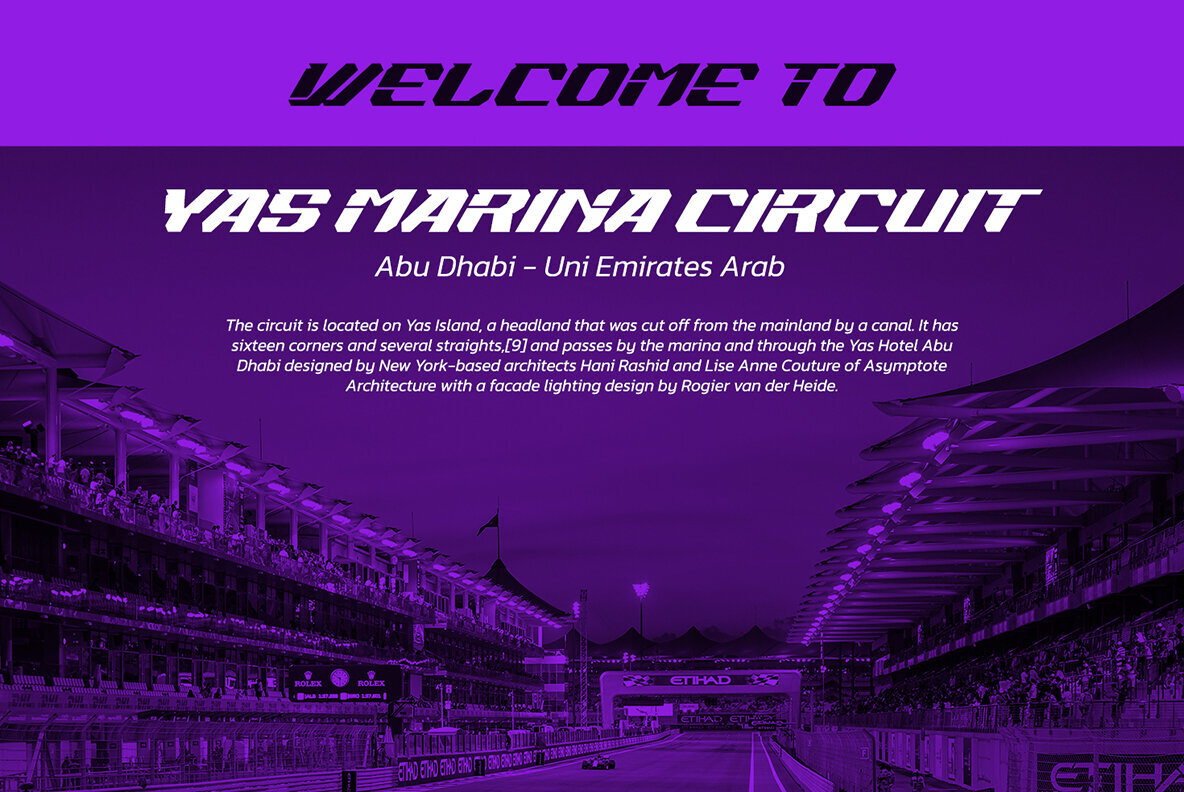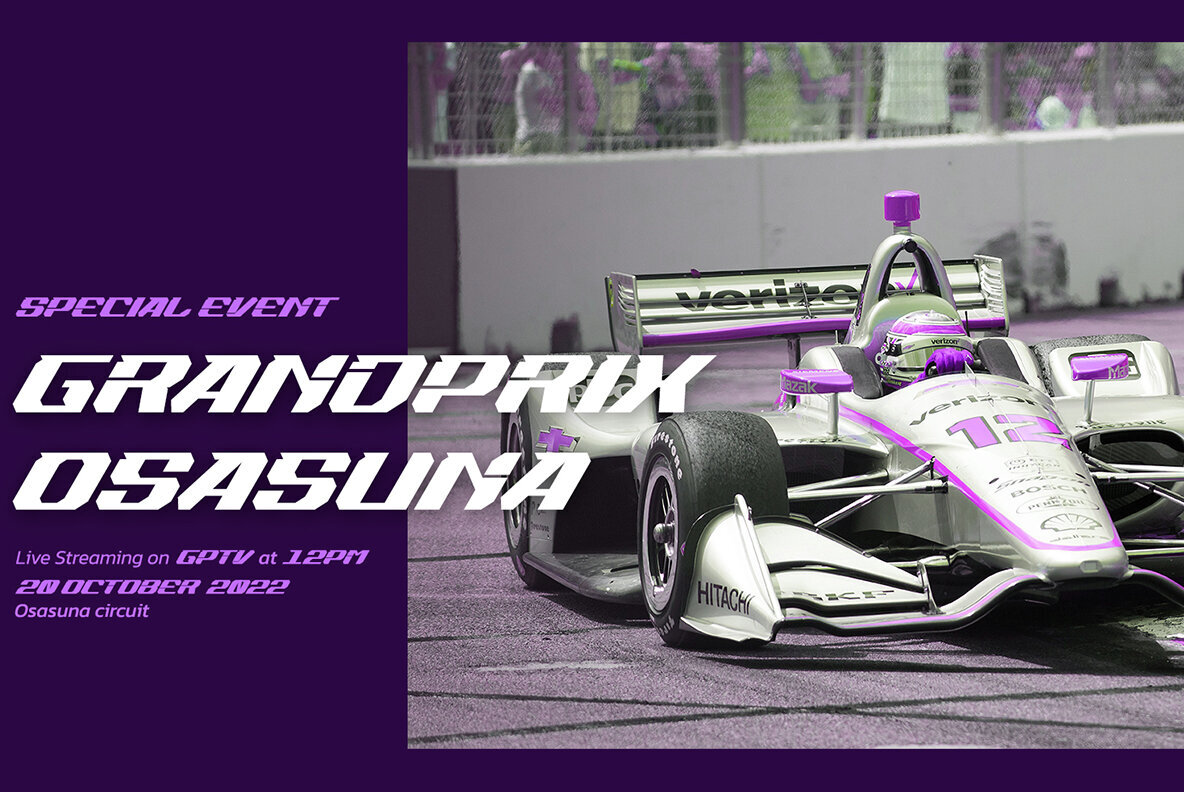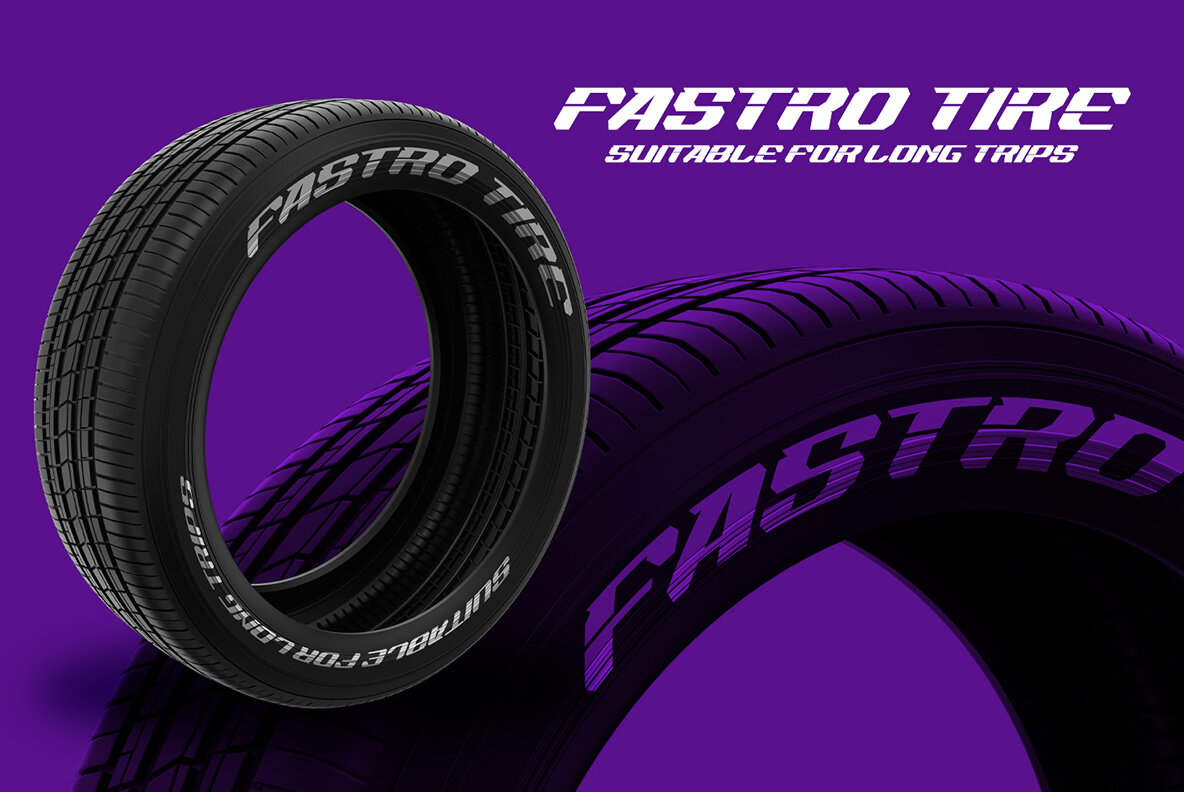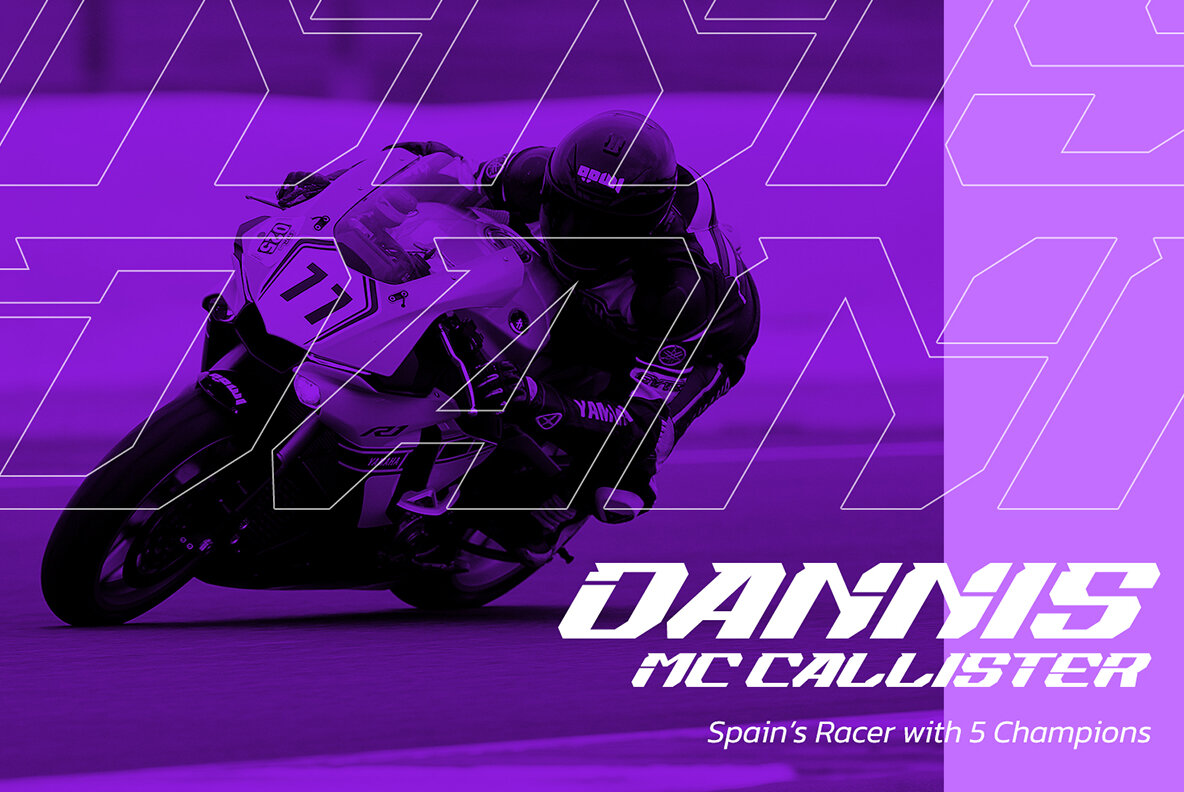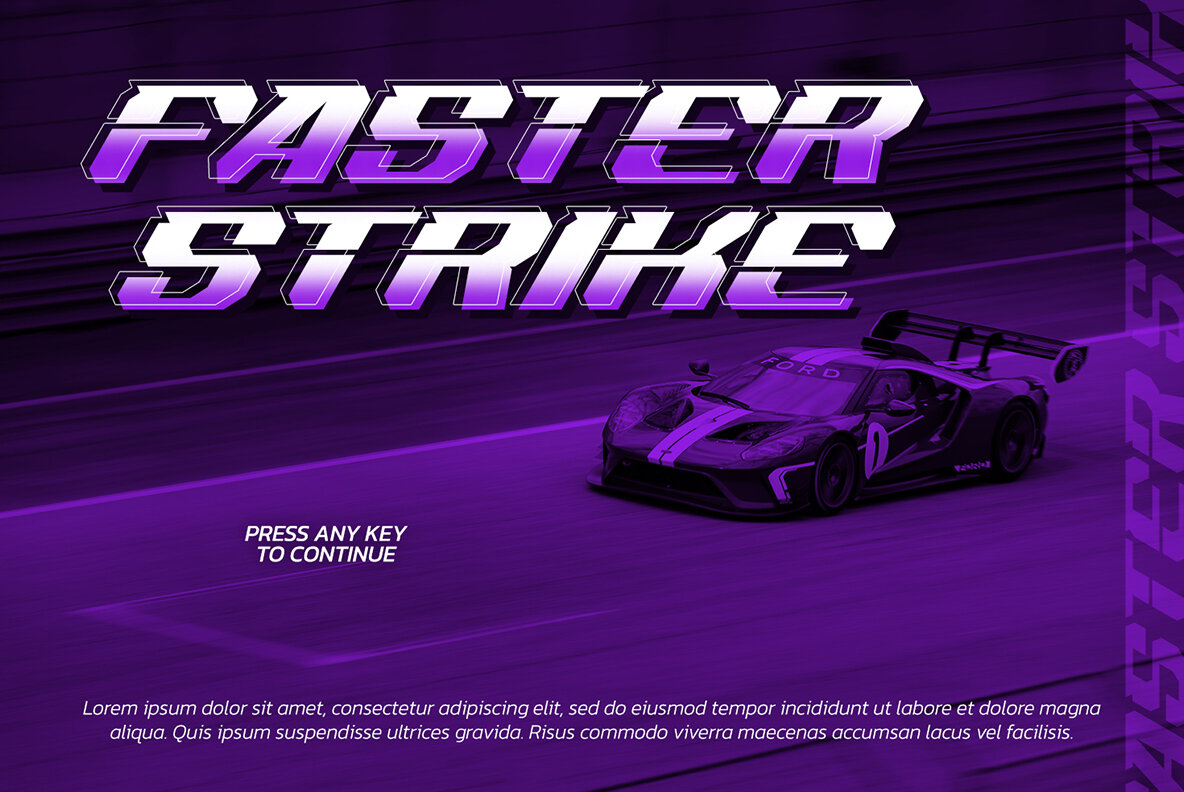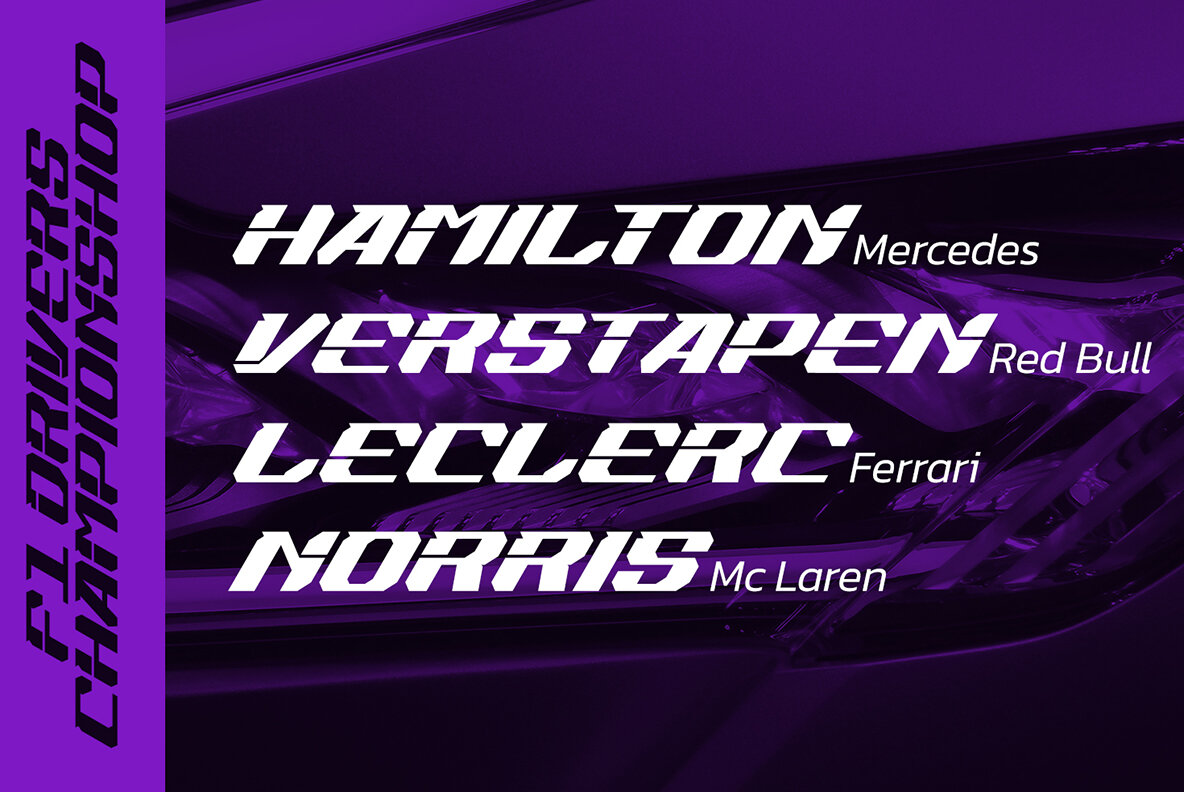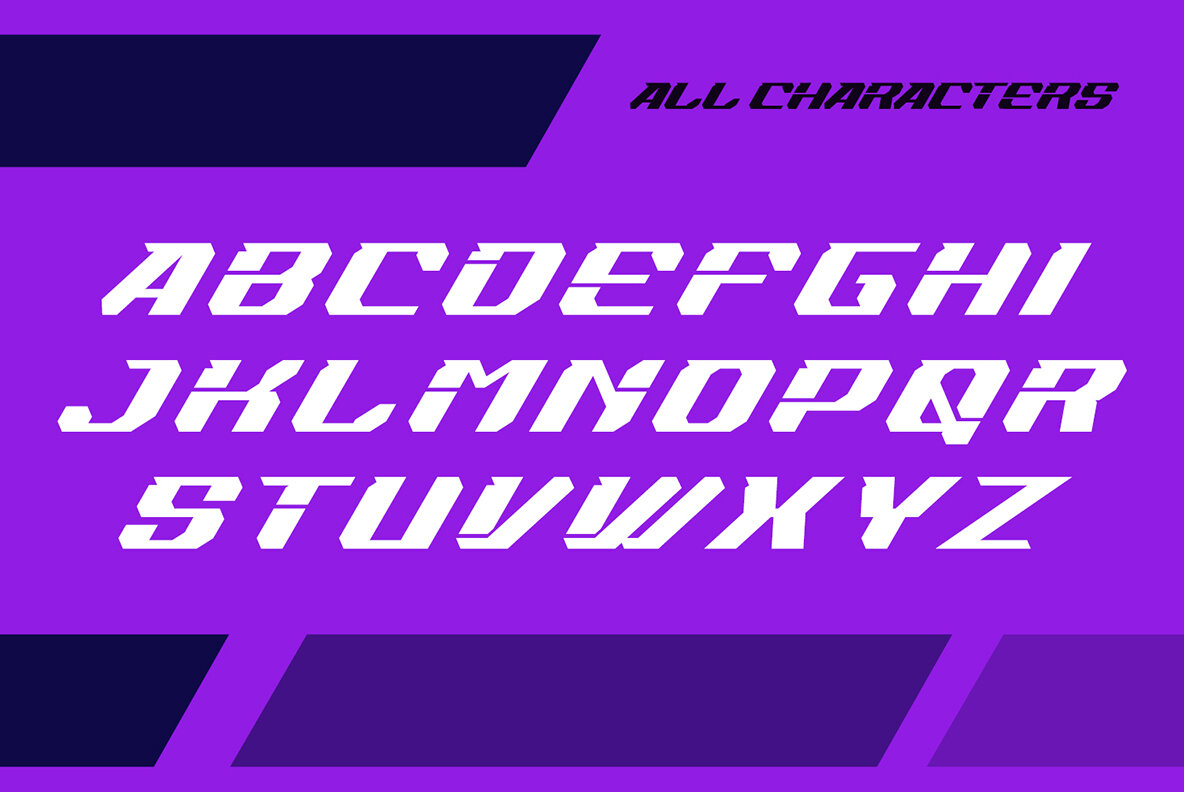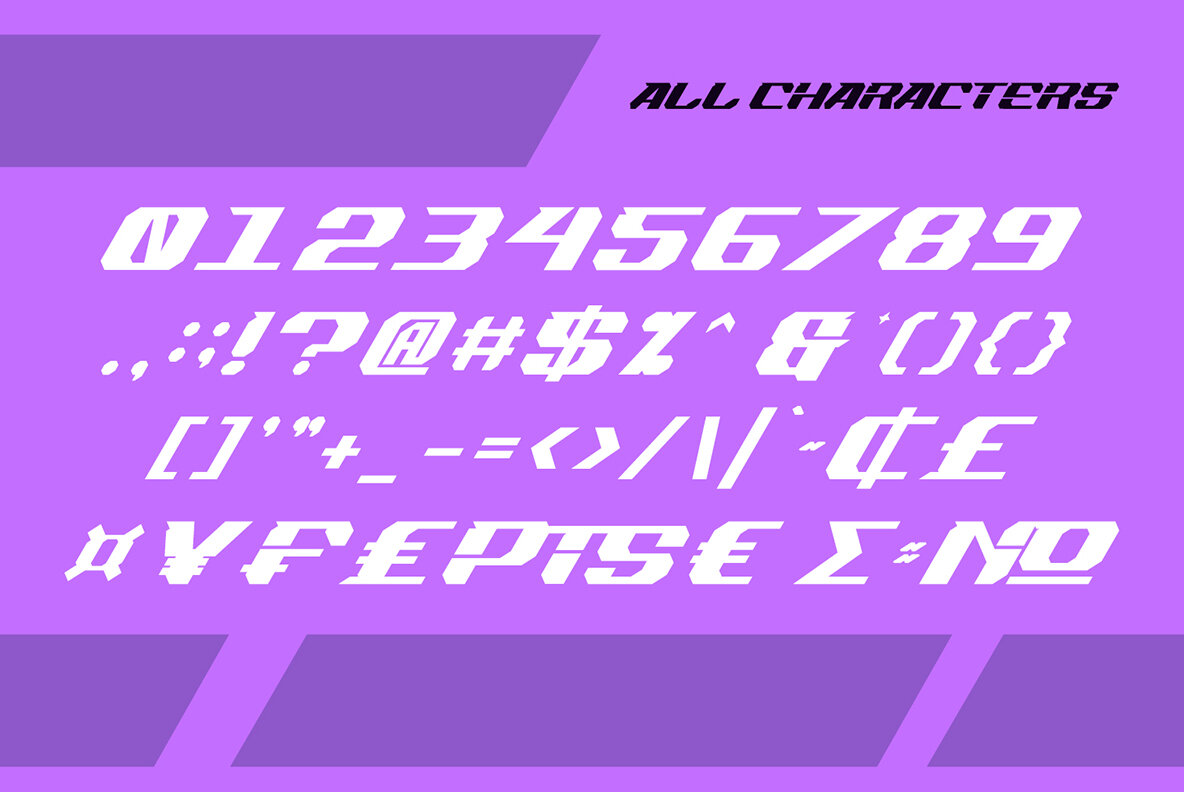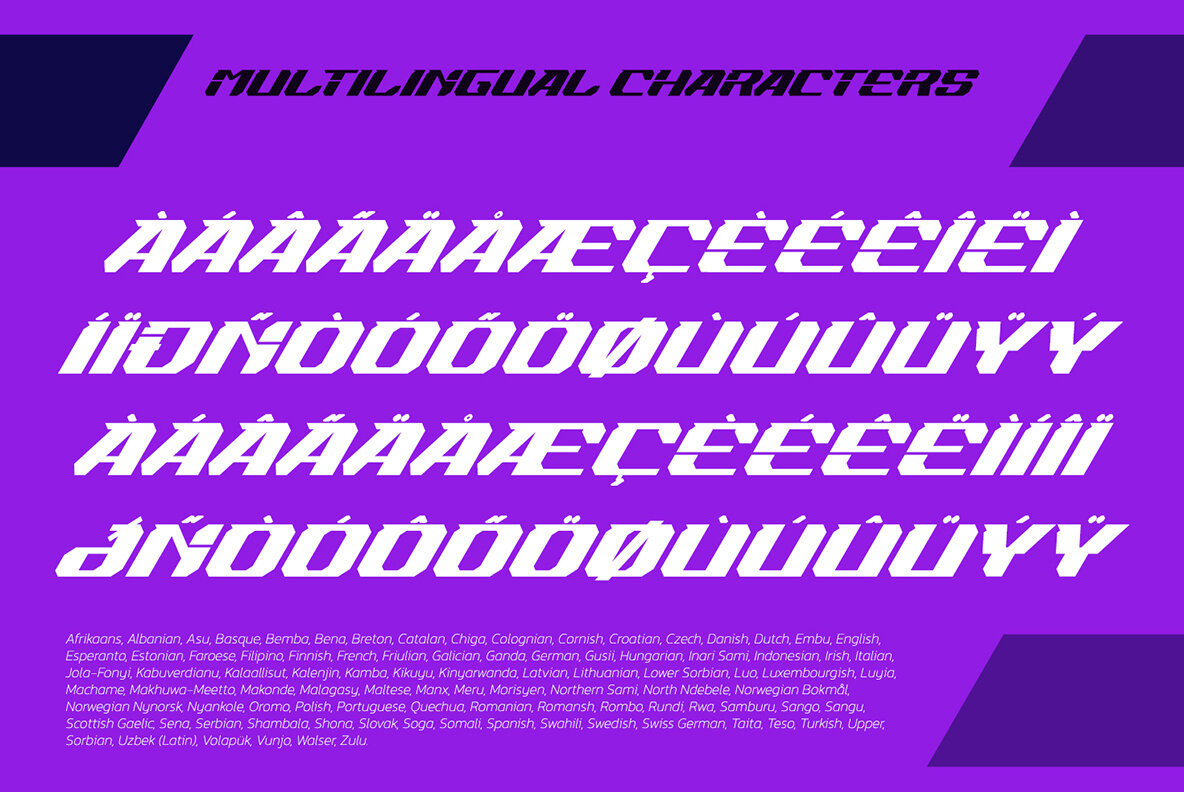
Hirace Font
Hirace Regular
Hirace, a striking display font crafted in capital letters, stands out with its distinctive racing theme. Designed to infuse your creations with a sense of strength, Hirace is the ideal choice for projects requiring impactful, large-scale text. Perfect for a range of applications, Hirace can be employed in posters, banners, logos, book covers, and more. Its versatility makes it suitable for both printed products and digital media.Hirace: Bold Display Font with Racing Inspiration